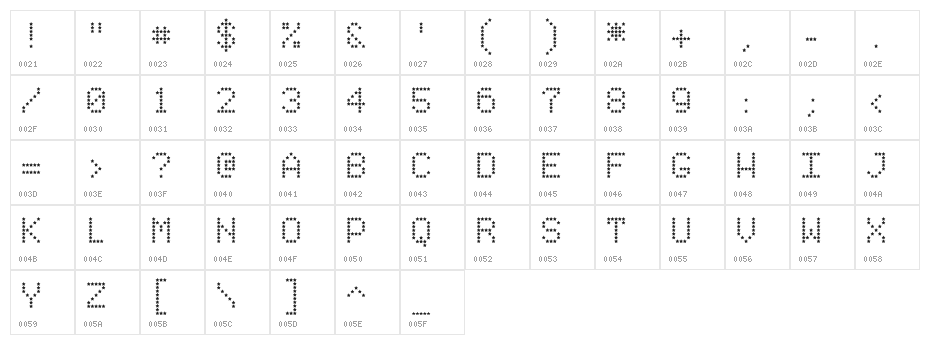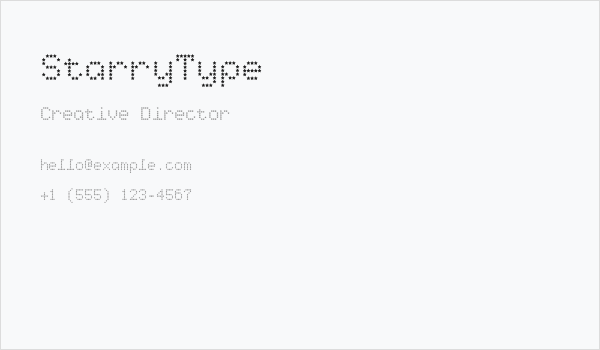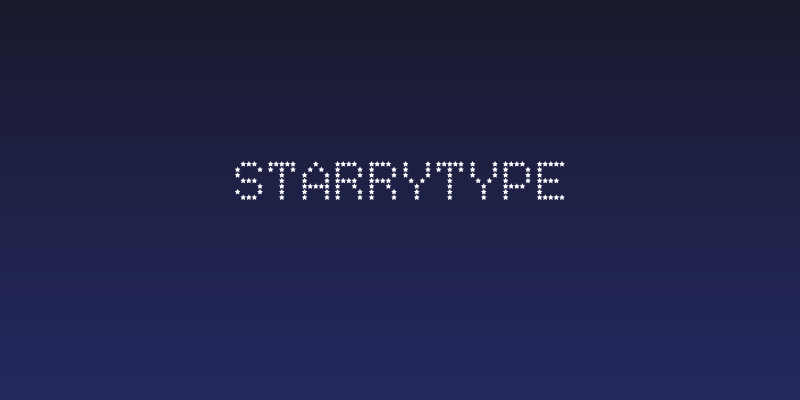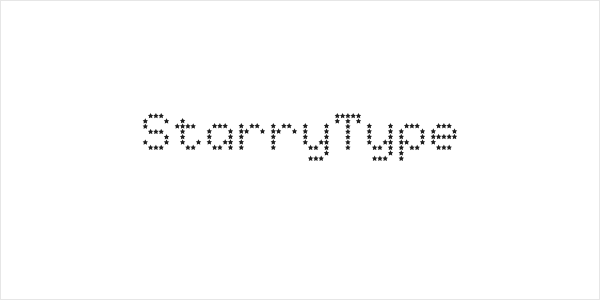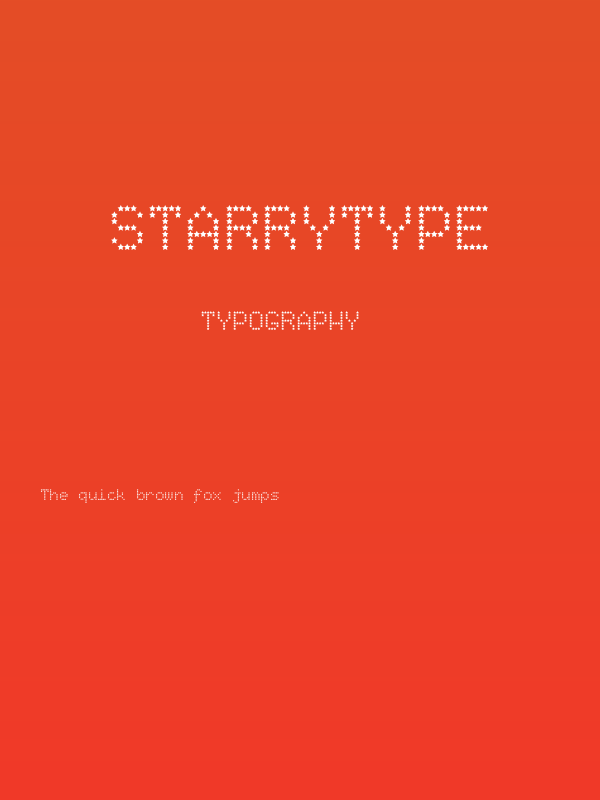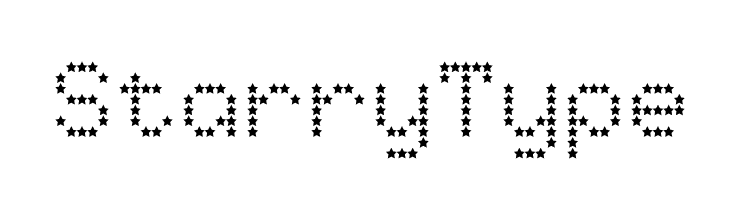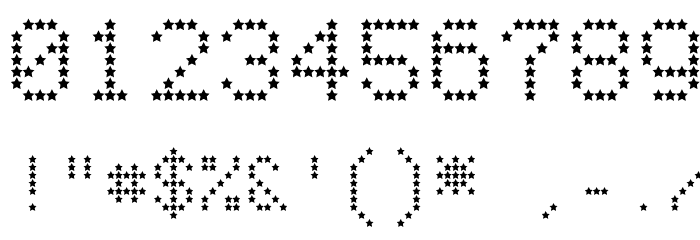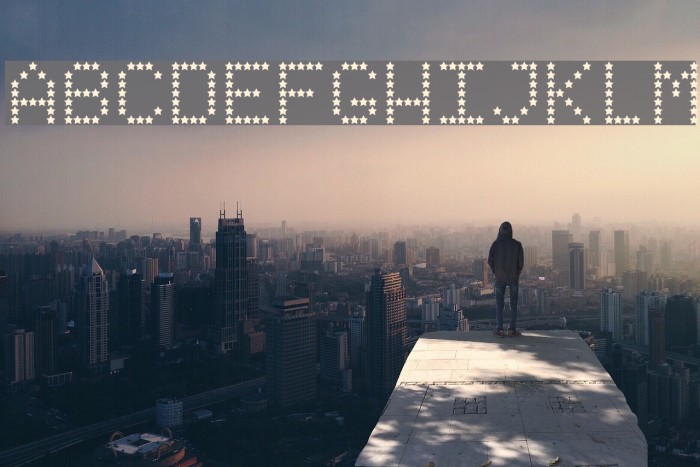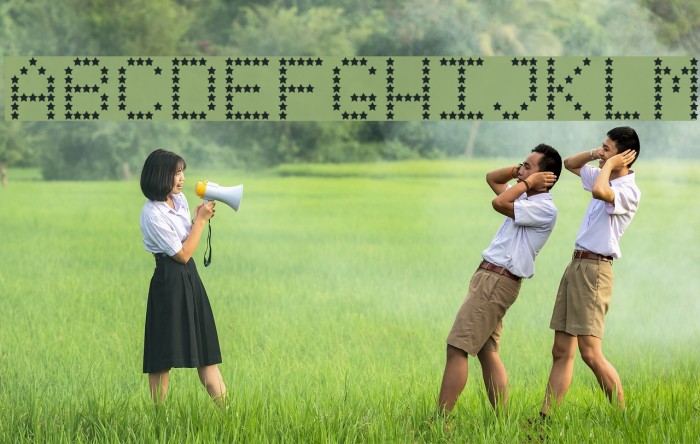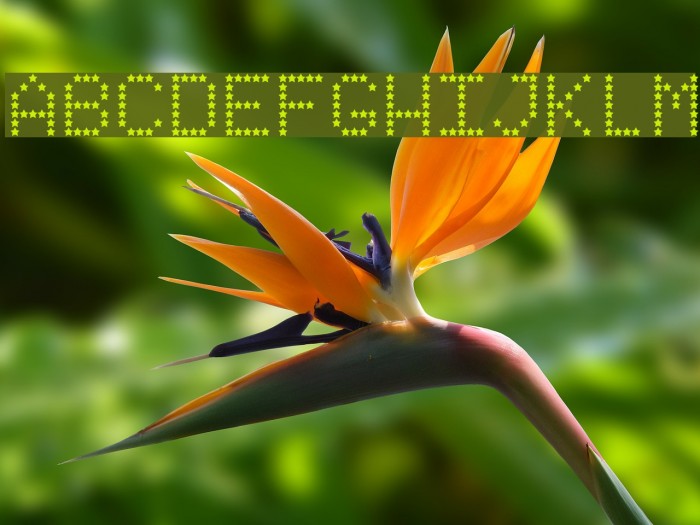
StarryType Font
StarryType Description
This font is a playful and decorative typeface composed entirely of small star shapes. Each character is formed by a series of stars, giving it a whimsical and celestial appearance. The design is consistent across uppercase and lowercase letters, as well as numbers and special characters. The stars are evenly spaced, creating a uniform and cohesive look. This font is ideal for projects that require a fun and eye-catching style, such as children's books, party invitations, or any design that aims to capture a sense of wonder and imagination.
| Proposed Projects | Children's books, party invitations, greeting cards, playful branding, and themed event materials. |